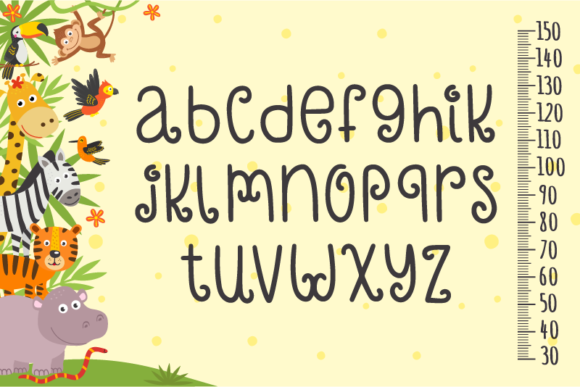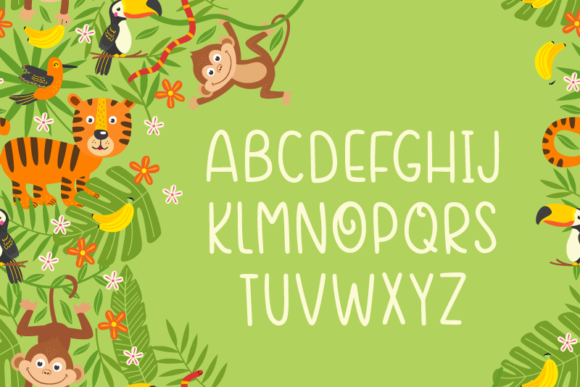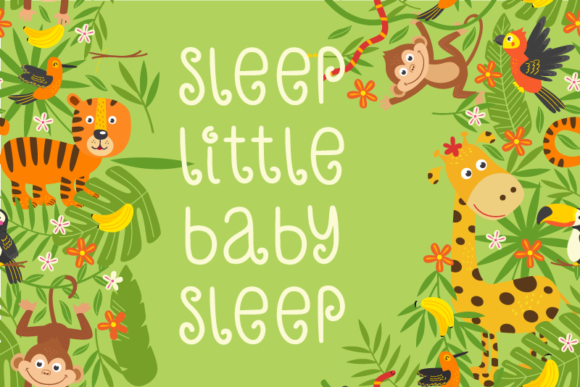
Crazy Monkey Font
About Crazy Monkey Font
Crazy Monkey is a chic and whimsical handwritten font. It looks stunning on wedding invitations, thank you cards, quotes, greeting cards, logos, business cards and every other design which needs a customized touch.